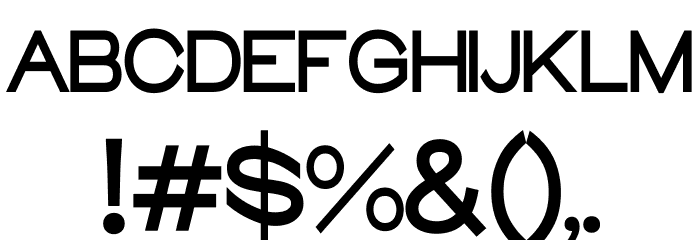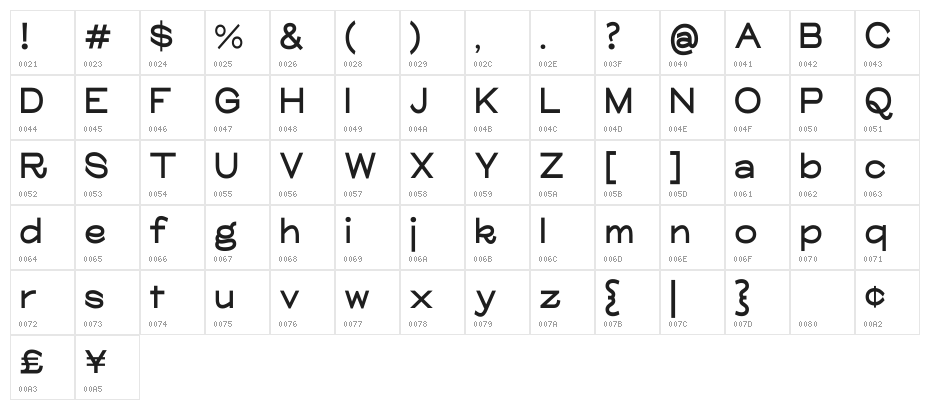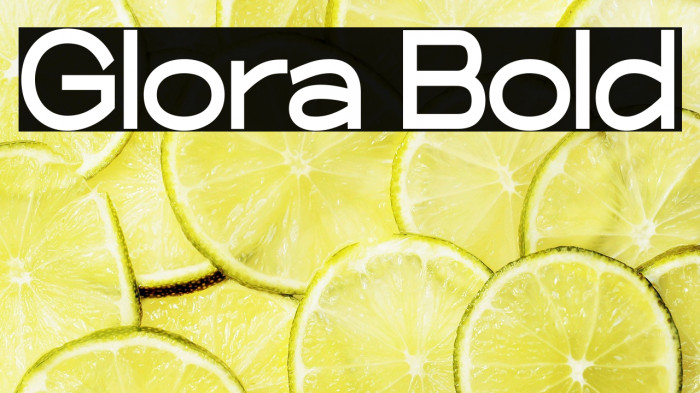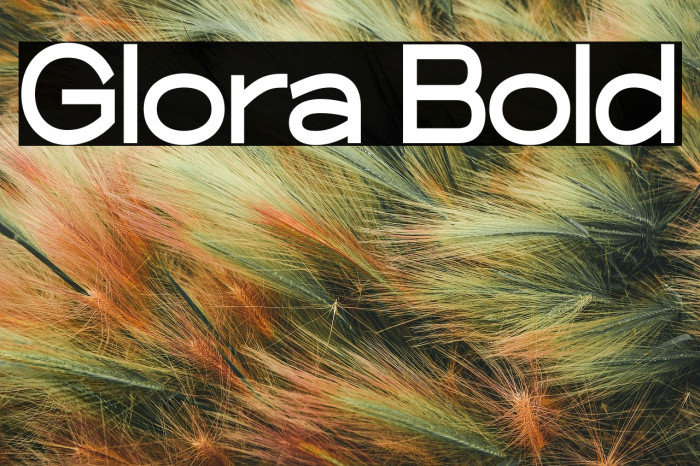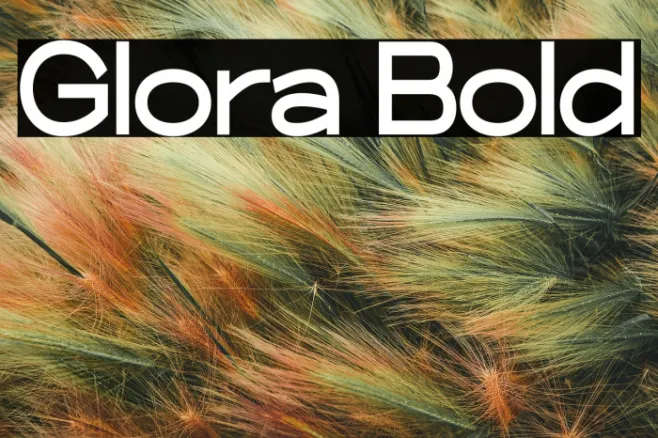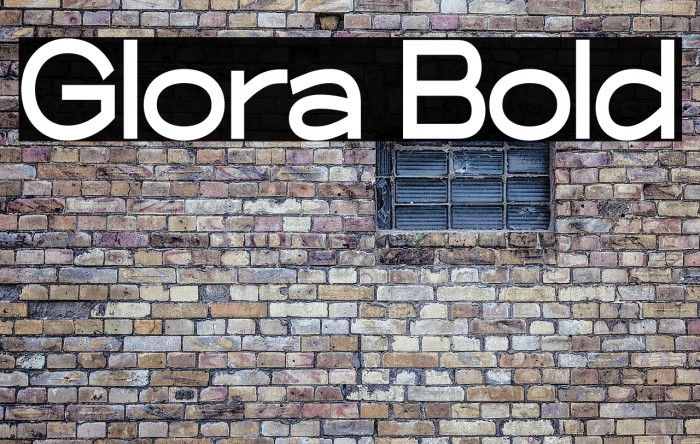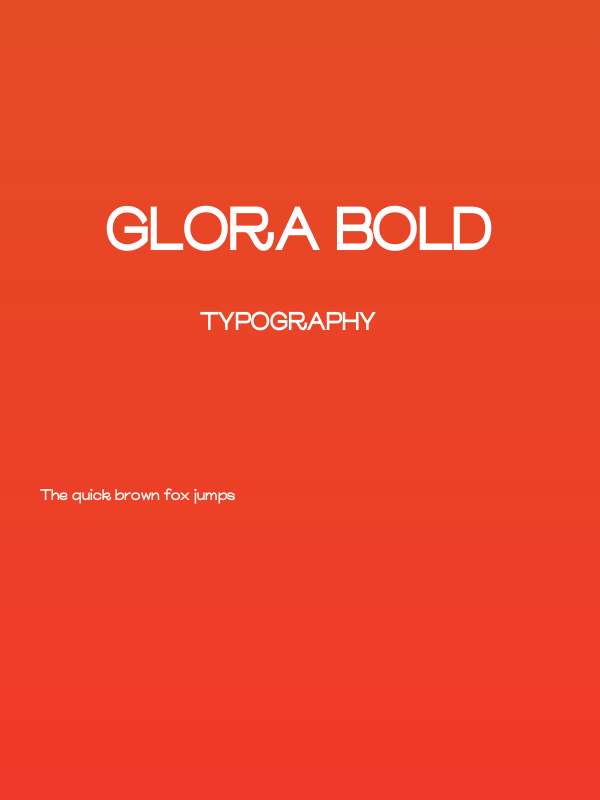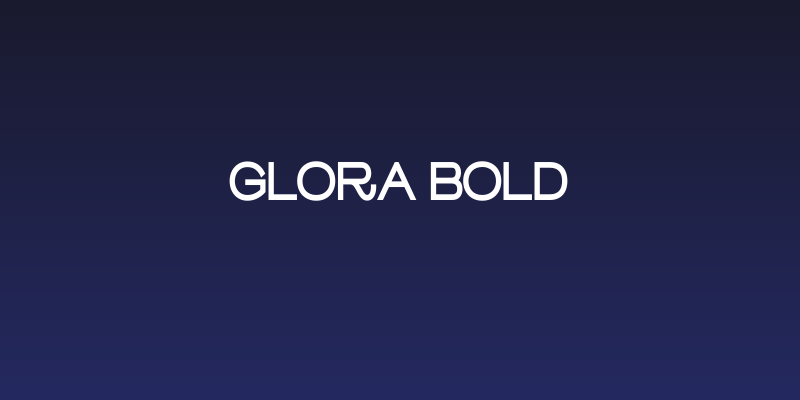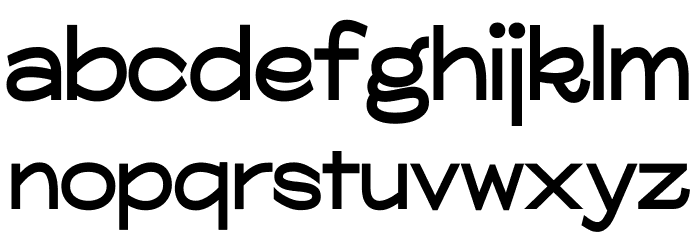
Glora Bold Font
Glora Bold Description
This font exhibits a bold and modern sans-serif style, characterized by clean lines and a geometric structure. The uppercase and lowercase letters maintain a consistent weight, contributing to a uniform appearance. The characters are well-proportioned, with rounded edges that soften the overall look. The numerals and special characters are designed to match the boldness of the alphabet, ensuring a cohesive visual identity. This font is versatile, suitable for both digital and print media, and can effectively convey a sense of clarity and professionalism.
| Proposed Projects | Ideal for branding, advertising, headlines, and digital interfaces. |